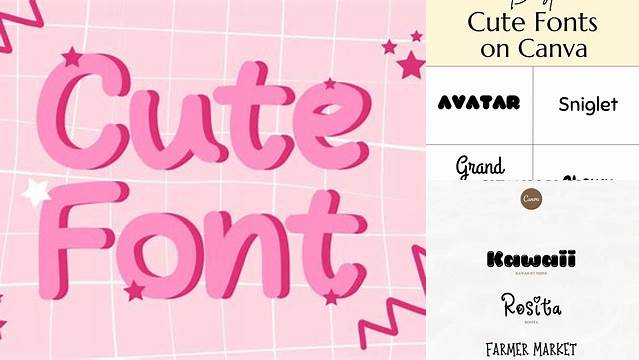
Best Cute Fonts For Thumbnails: Grab Attention!
Hey everyone, are you looking to level up your video game? You know, making your videos stand out from the crowd is super important, and a big part of that is having eye-catching thumbnails. And guess what? The font you use on your thumbnails can make or break whether people click on your videos. It is all about grabbing attention! So, if you're ready to learn about some cute fonts for thumbnails, you're in the right place! We're going to dive into the world of fonts, talk about why they matter, and look at some seriously adorable options that will make your thumbnails irresistible. Let's get started, guys!
Why Fonts Matter for Thumbnails
Okay, so why is choosing the right font so critical? Think of your thumbnail like a tiny billboard for your video. It's the first thing people see when they're scrolling through YouTube, Instagram, or any other platform. You've got a split second to grab their attention and convince them to click. That's where fonts come in. The right font can instantly communicate what your video is about, set the tone, and make your thumbnail look professional and polished. On the other hand, a poorly chosen font can make your thumbnail look cluttered, confusing, or even unprofessional. No one wants that! When choosing fonts for your thumbnails, think about the overall vibe you want to create. Are you going for fun and playful? Maybe something a little more elegant or serious? The font you choose should reflect the content of your video and your brand's personality. Some fonts are just better at capturing attention than others. Some fonts are perfect for conveying a sense of fun, while others communicate professionalism or sophistication. It's all about finding the font that perfectly matches the style of your video and helps draw viewers in. Choosing the right font is not just about aesthetics; it's about effective communication. The best fonts for thumbnails are clear, readable, and visually appealing. They should instantly communicate the main idea of your video and make people want to learn more. Also, when you're choosing a font, think about how it looks on different devices. You'll want to ensure that your font is easy to read, no matter what screen your viewers are using. Make sure you keep this in mind when choosing fonts. Making thumbnails can be hard, but choosing the right fonts can make them much better. Also, consider the colors you're using in your thumbnails. Make sure there's enough contrast between your font and the background so the text is easy to read. This will help your thumbnails look professional and will grab the attention of your viewers!
Top Cute Fonts for Thumbnails
Alright, now for the fun part! Let's explore some of the cutest fonts for thumbnails that will make your videos shine. Keep in mind that these fonts are just a starting point. The best font for you will depend on your specific video and brand. I'm here to give you all the information so that you can make the best choice. So keep these fonts in mind when creating thumbnails. The goal is to select a font that will help you capture the attention of the viewer. There are a lot of cute fonts out there, and it can be a little tricky to choose the best one. The best way to choose is to consider the content of your video. Consider your brand too! All of this will help you choose the right font and the right style. Let's get started!
1. Comic Sans
I know, I know – Comic Sans gets a lot of flak. But hear me out! When used correctly, Comic Sans can be a playful and friendly choice for thumbnails. It's a font everyone knows, which can give your thumbnails a sense of familiarity. If your video is lighthearted, fun, or aimed at a younger audience, Comic Sans might be the perfect fit. Just make sure you use it sparingly and strategically. Don't go overboard! Sometimes, it can come off as a little unprofessional if you use it in every video, but when used in the right way, it can be great!
2. Bubble Letters
Bubble letters are pure fun! These fonts are rounded, bouncy, and perfect for creating a cheerful and energetic vibe. They're great for videos about kids, crafts, or anything that's meant to be lighthearted and engaging. Bubble letters are perfect if you want to convey that you're an exciting or engaging content creator. There are many variations of bubble letters, so experiment with different styles to see what works best for you. Bubble letters are perfect for conveying playfulness. Make sure the content of your video matches this vibe. You can't go wrong if you do this! If you are looking for a font to help you convey this, bubble letters are a perfect choice. This is a great choice!
3. Handwritten Fonts
Handwritten fonts add a personal touch to your thumbnails. They make your videos feel authentic and relatable. There are tons of handwritten fonts available, from elegant scripts to more casual, quirky styles. Choose a handwritten font that reflects your personality and the tone of your video. Handwritten fonts are perfect for making your video more personable. Viewers will feel more connected to you! So, if you're a vlogger or a creator who wants to build a strong connection with your audience, a handwritten font is a great choice. There are a lot of different choices in this area, so choose one that fits you best!
4. Chunky Fonts
Chunky fonts are bold, attention-grabbing, and perfect for making a statement. They work well for thumbnails that need to convey a strong message or highlight a specific word or phrase. Chunky fonts are great for tutorials and videos that need to be seen. Chunky fonts can be very easy to read, which is perfect for thumbnails. Consider using a chunky font if you want your thumbnail to really stand out. If you want to make a statement, a chunky font is your best choice! These are great for capturing attention!
5. Decorative Fonts
Decorative fonts come in various styles, from whimsical to elegant. They can add a unique touch to your thumbnails and make them stand out. Choose a decorative font that complements your video's theme and overall aesthetic. Decorative fonts are great if you're a more artistic content creator. If you use a lot of art in your videos, decorative fonts are perfect. So, if you create art videos or have some aesthetic in your videos, decorative fonts can be your best choice. This will make your videos unique and help you stand out. Also, make sure the font doesn't take away from the video.
Tips for Using Fonts in Thumbnails
Now that you know some great fonts, let's go over some tips for using them effectively:
- Keep it simple: Don't overcrowd your thumbnails with too much text. Less is often more. Focus on conveying the main idea of your video in a few key words or phrases.
- Use contrast: Make sure your font color contrasts well with the background of your thumbnail. This will make your text easy to read.
- Choose the right size: Make sure your font is large enough to be easily readable on all devices.
- Consider your brand: Use fonts that align with your brand's style and personality.
- Experiment: Try out different fonts and combinations to see what looks best for your videos.
- Maintain consistency: Stick to a consistent font style throughout your videos to create a cohesive brand identity. This can help with consistency and recognition!
Conclusion: Make Your Thumbnails Irresistible!
So there you have it, guys! Choosing the right font is an essential part of creating eye-catching thumbnails. I hope this guide has given you some ideas for cute fonts to use in your videos. Remember to keep your brand in mind, make sure your text is easy to read, and experiment with different styles to find what works best for you. By using the right fonts, you can create thumbnails that capture attention, communicate your video's message, and encourage viewers to click. Now go out there and create some amazing videos! Good luck, and have fun creating thumbnails!